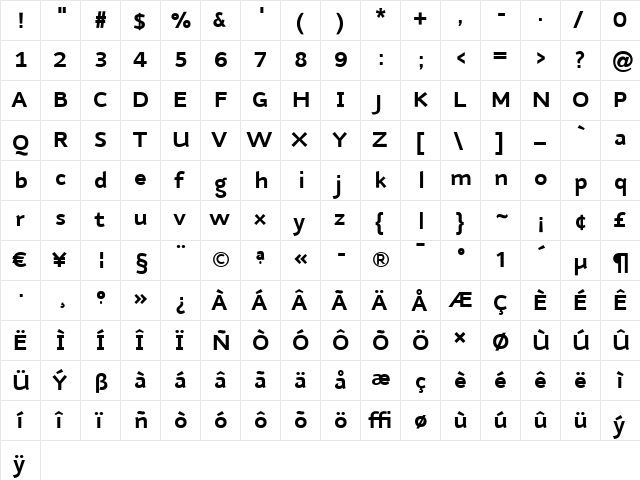
NubianAlt-Bold Bold Font Preview
NubianAlt-Bold Bold
NubianAlt-Bold Bold Font Details
| Foundry | \ G-Type Designed and digitized by Nick Cooke |
Design Context for NubianAlt-Bold Typeface
NubianAlt-Bold is a composed and adaptable typeface that performs quietly and consistently across a wide range of design contexts. Its bold stroke weight gives it real presence on the page.